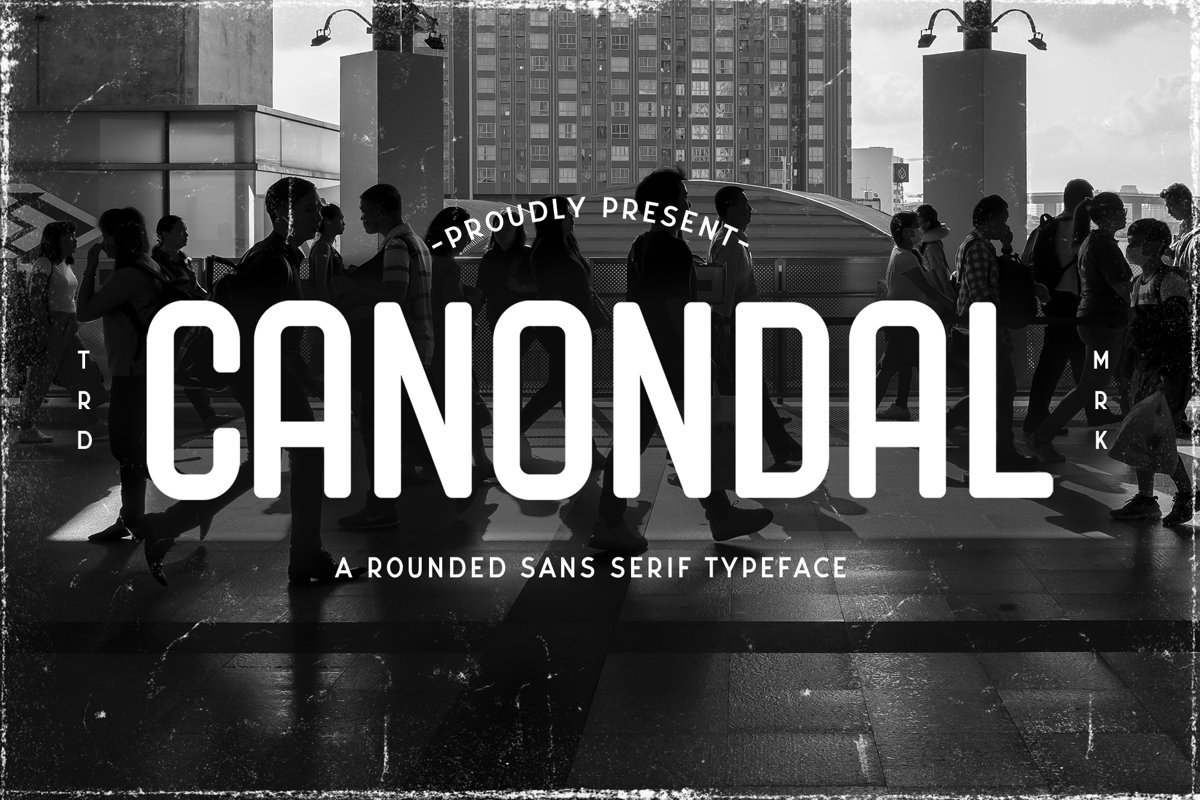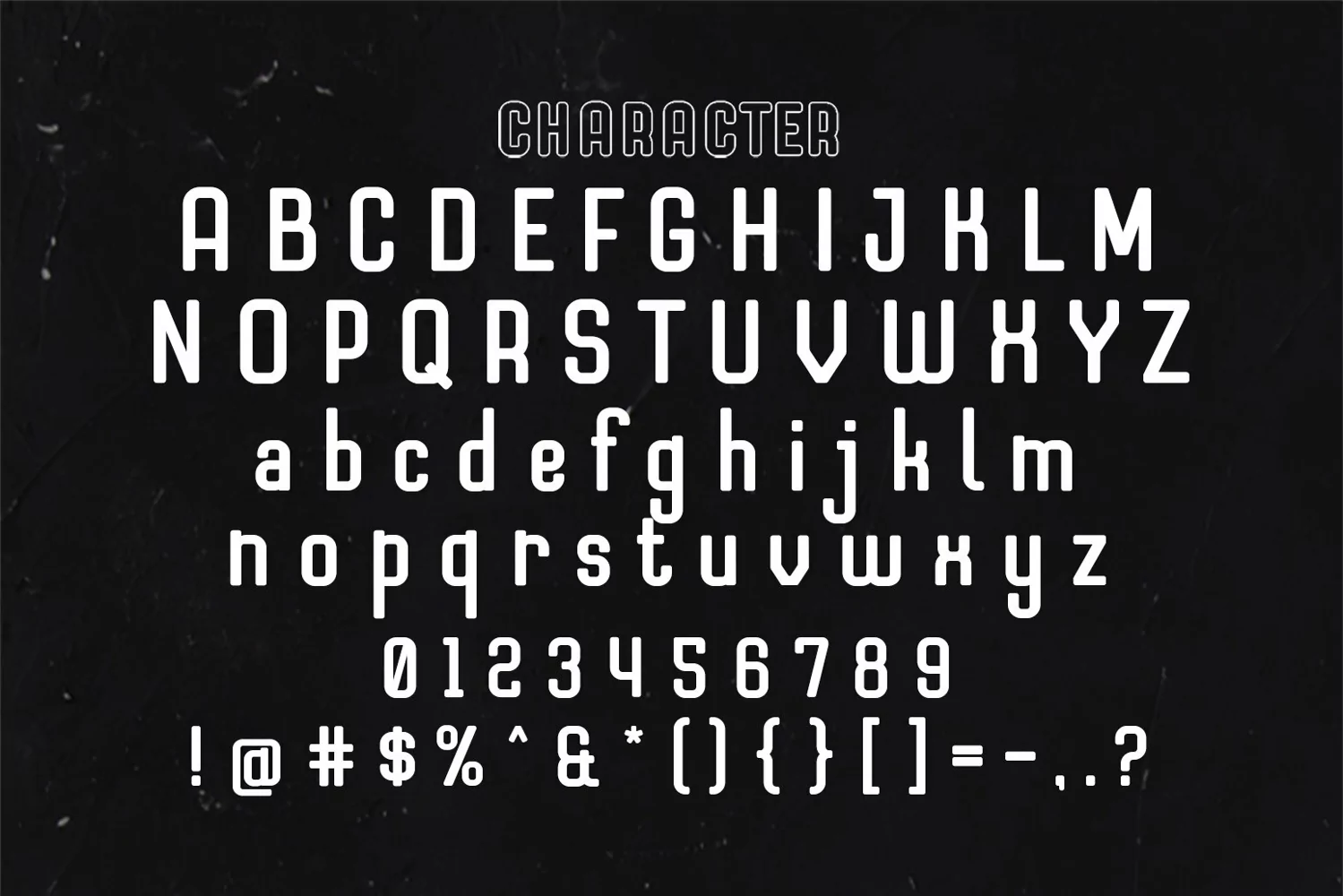
Canondal is a rounded sans serif typeface. Perfect for display, header, tittle, logo, logotype, badges, emblem, packaging, merchandise, branding, poster, business card, and many more.